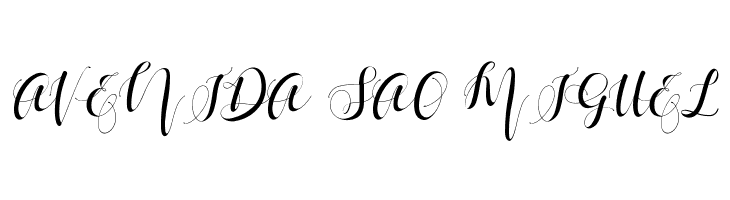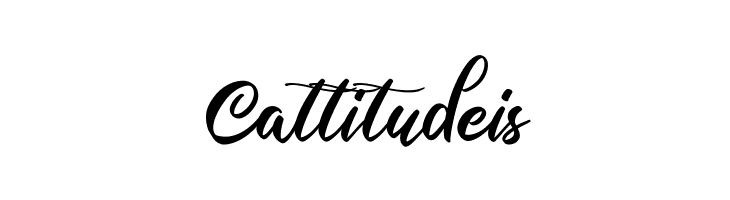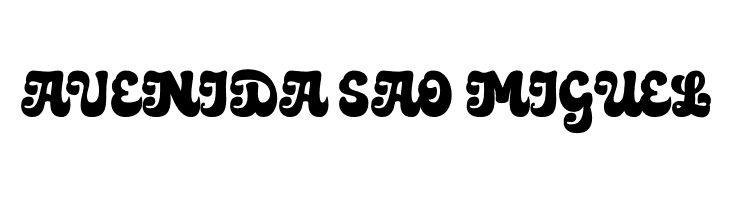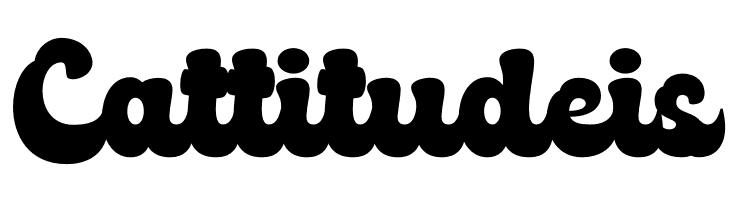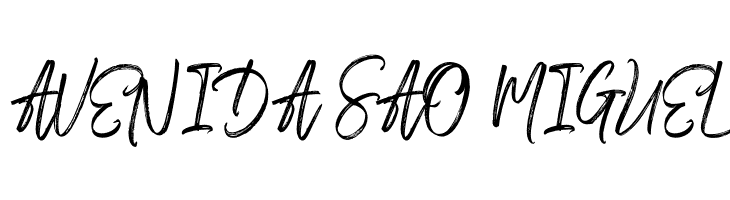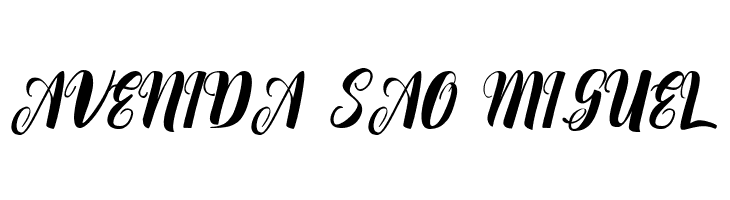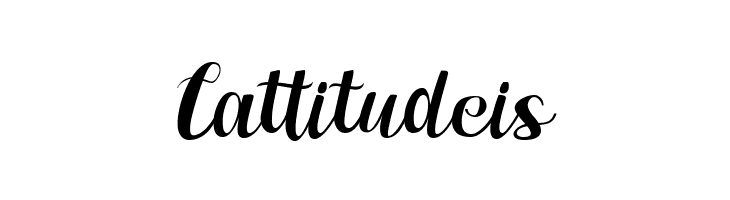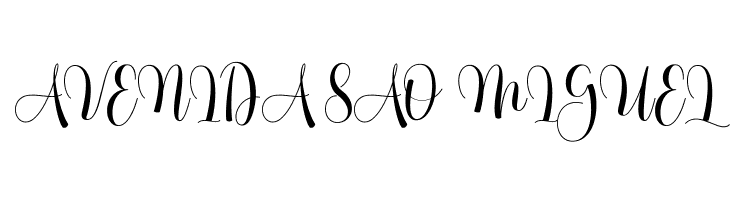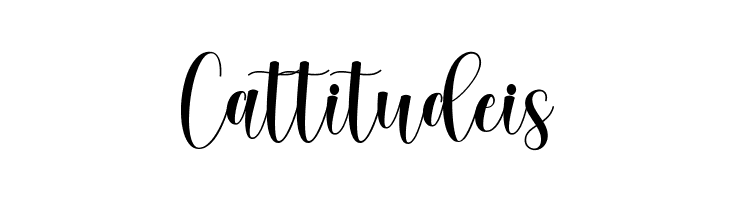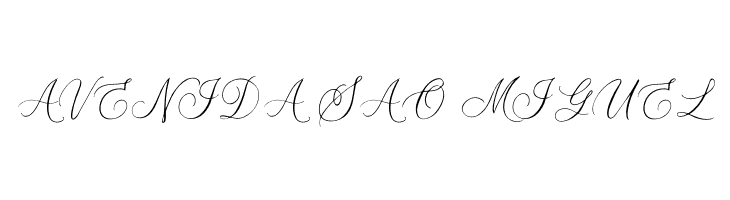
A bold, cursive script font with fluid, interconnected letters.
A bold, flowing script font with elegant curves and smooth strokes.
A modern, elegant script font with a flowing, handwritten style.
A dynamic and flowing script font with elegant, cursive letterforms.
An elegant, flowing script font with ornate uppercase letters and smooth cursive lines.
A playful, handwritten script font with a casual and whimsical style.
A whimsical and fluid script font with a hand-drawn appearance.
A bold, flowing script font with elegant, cursive letterforms.
A bold, elegant script font with flowing, connected characters.
An elegant script font with flowing, ornate swashes and high contrast strokes.
A flowing, cursive script font with elegant, connected characters.
A lively, handwritten font with fluid strokes and a personal touch.
A playful, handwritten font with bold, rounded strokes and a casual style.
Ornamental medieval tile-inspired decorative font.
An elegant script font with fluid, interconnected strokes and graceful curves.
A dynamic, cursive script font with a brush-like texture and handcrafted feel.
A bold, playful script font with rounded, connected letters.
An elegant script font with flowing, interconnected letters and calligraphic style.
An elegant, flowing script font with refined cursive style.
A graceful and elegant script font with flowing cursive style.
A bold, fluid script font with interconnected letters and expressive strokes.
A fluid, handwritten script font with elegant, flowing strokes.
A fluid and elegant script font with a handwritten style.
A graceful and elegant script font with fluid, cursive strokes.
A sophisticated script font with flowing, cursive letterforms and elegant flourishes.
An elegant script font with fluid, cursive strokes and a refined, handwritten style.
An elegant script font with flowing, interconnected letters and delicate flourishes.
A graceful script font with flowing, cursive strokes and elegant flourishes.